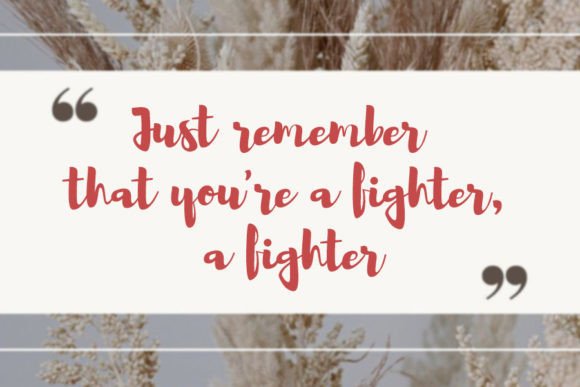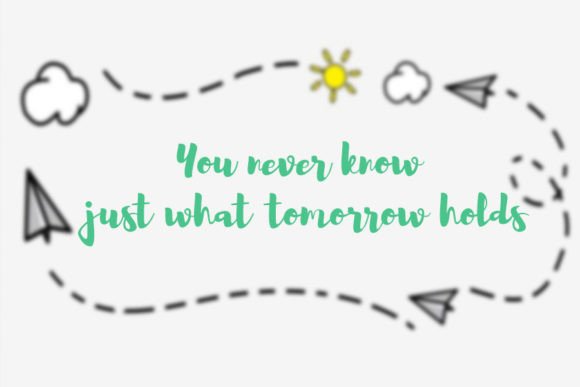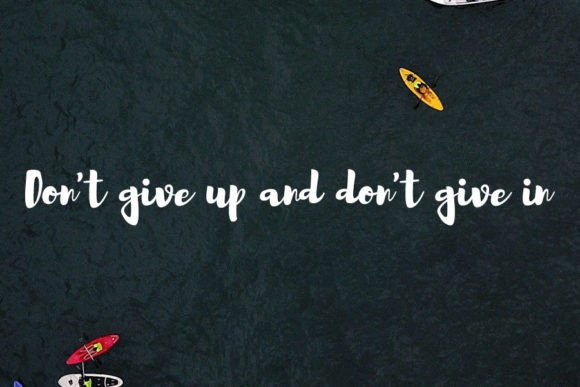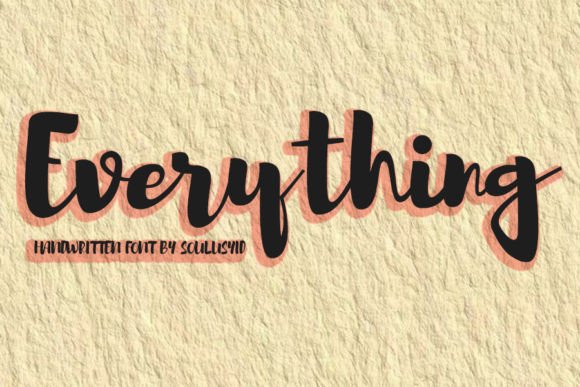
Introducing Everything Font: The Perfectly Imperfect Handwritten Font
Are you tired of using the same old fonts in your designs? Do you want to add a touch of personality and whimsy to your projects? Look no further than the Everything Font, a bold handwritten font that is sure to make a statement. With its varied curves and thick strokes, this font is perfect for designers and crafters who want to add a unique touch to their work.
What is Everything Font?
Everything Font is a bold handwritten font that is perfectly imperfect and full of character. It features varied curves and thick strokes that give it a unique and playful feel. This font is not your average, run-of-the-mill font. It’s a font that is designed to stand out and make an impact. Whether you’re designing a logo, creating a social media graphic, or crafting a handmade project, Everything Font is the perfect choice.
Characteristics of Everything Font
So, what makes Everything Font so special? Here are just a few of its key characteristics:
- Bold and playful: Everything Font is a bold and playful font that is designed to grab attention.
- Varied curves and thick strokes: The font features varied curves and thick strokes that give it a unique and handmade feel.
- Perfectly imperfect: Everything Font is not a perfect font, and that’s what makes it so charming. It has a handmade feel that is perfect for adding personality to your designs.
- Full of character: This font is full of character and personality, making it perfect for designers and crafters who want to add a unique touch to their work.
Uses for Everything Font
So, what can you use Everything Font for? The possibilities are endless! Here are just a few ideas to get you started:
- Logo design: Everything Font is perfect for creating unique and eye-catching logos that stand out from the crowd.
- Social media graphics: Add a touch of personality to your social media graphics with Everything Font.
- Handmade projects: Whether you’re creating handmade cards, gift tags, or other projects, Everything Font is the perfect choice.
- Signs and posters: Use Everything Font to create eye-catching signs and posters that grab attention.
Tips for Using Everything Font
Here are a few tips for using Everything Font in your designs:
- Use it sparingly: Because Everything Font is so bold and playful, it’s best to use it sparingly. Use it for headings or titles, and a simpler font for body text.
- Experiment with colors: Everything Font looks great in a variety of colors, so don’t be afraid to experiment and find the perfect color for your design.
- Pair it with other fonts: Everything Font pairs well with a variety of other fonts, so try pairing it with a simpler font for a unique and interesting look.
Everything Font is a unique and playful font that is perfect for designers and crafters who want to add a touch of personality to their work. With its varied curves and thick strokes, this font is sure to make a statement and add a unique touch to your designs. Whether you’re creating a logo, social media graphic, or handmade project, Everything Font is the perfect choice. So why not give it a try and see the impact it can have on your designs?